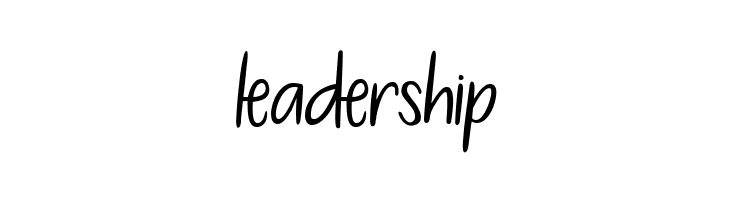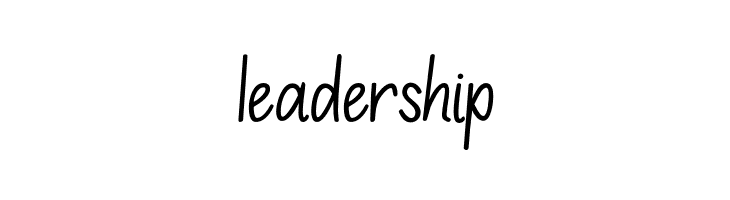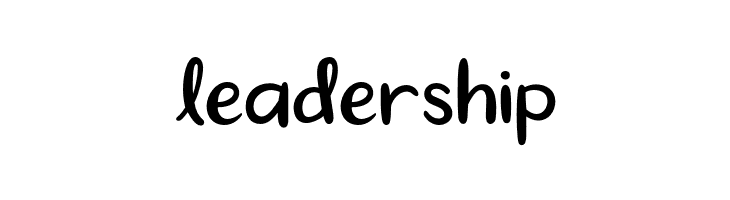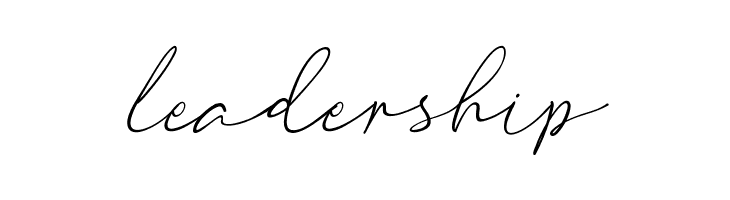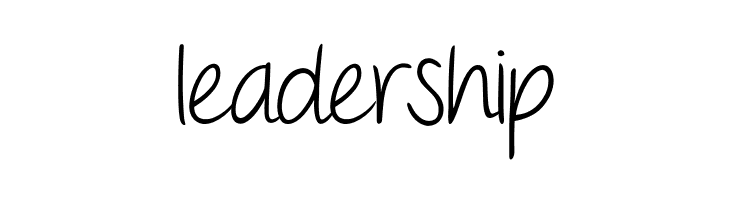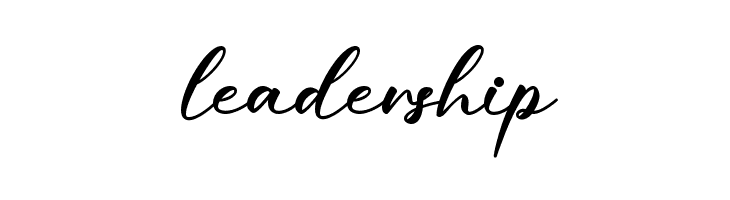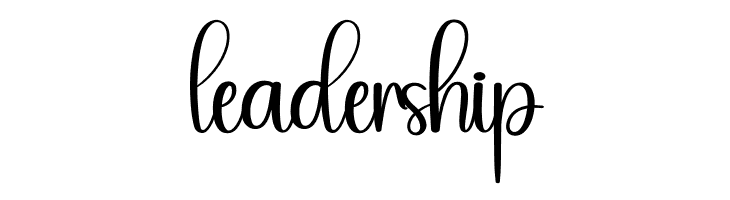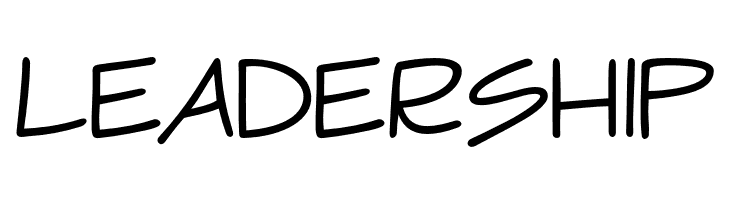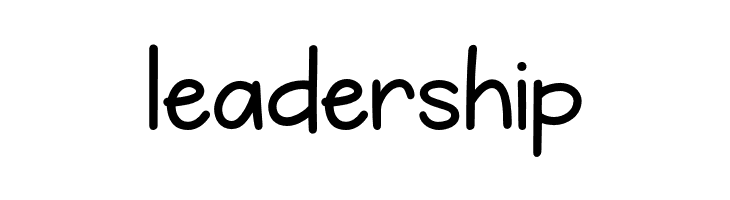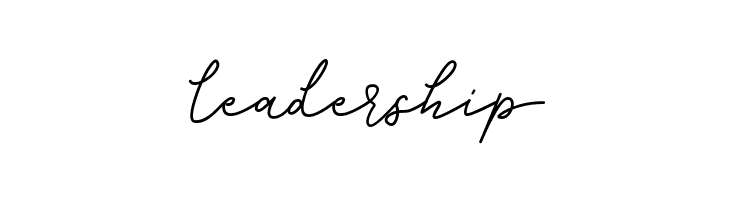
A lively and expressive handwritten font with fluid strokes.
Energetic, cursive handwritten script with tall, narrow forms and high contrast.
A playful, handwritten font with a casual and informal style.
A playful, handwritten font with a casual and approachable style.
A playful, handwritten font with irregular strokes and a casual style.
Casual handwritten font with smooth, rounded strokes.
Bold, expressive handwritten script font.
A bold, flowing script font with smooth curves and playful elegance.
A bold, flowing script font with an elegant, handwritten style.
An elegant script font with flowing, connected strokes and decorative swashes.
A playful, hand-drawn font with a casual and creative style.
A bold, handwritten font with a dynamic and expressive style.
A dynamic and energetic handwritten font with fluid strokes and expressive letterforms.
A playful, whimsical handwritten font with flowing strokes and a casual feel.
A casual, handwritten font with smooth, fluid strokes and a personal touch.
Handwritten script with elegant, flowing lines and high contrast.
A bold, playful handwritten font with a casual, artistic style.
A playful, casual handwritten font with fluid strokes and a lively feel.
A playful, casual handwritten font with smooth, flowing lines and slightly irregular letterforms.
A lively, handwritten font with dynamic strokes and playful contrast.
A graceful, flowing script font with elegant, continuous strokes.
A lively, expressive script font with fluid, interconnected strokes.
A lively, expressive handwritten font with fluid, dynamic strokes.
A charming, elegant handwritten font with a classic calligraphy style.